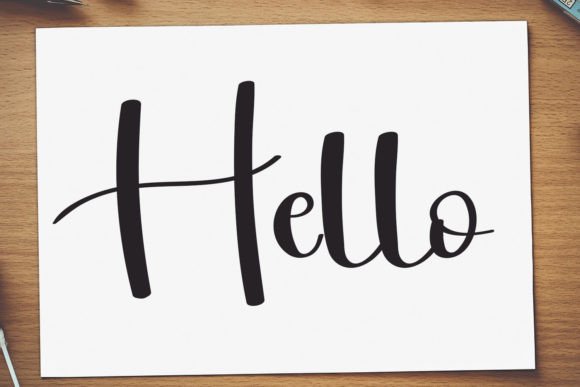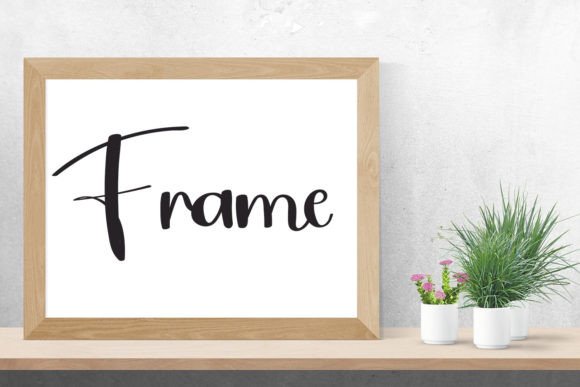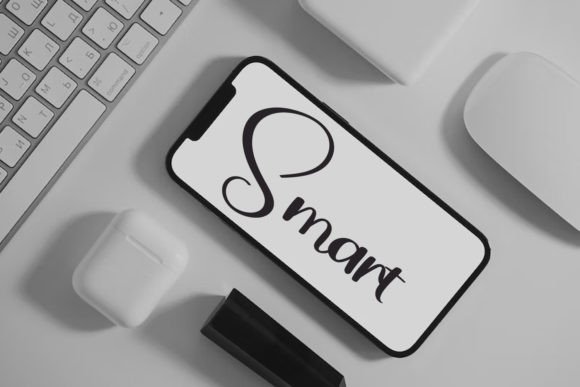
Discover the Elegance of Airy Font: Elevate Your Designs with Fresh and Beautiful Typography
In the world of design, typography plays a crucial role in conveying messages, expressing creativity, and capturing the audience’s attention. Among the numerous fonts available, Airy Font stands out as a fresh and beautiful addition to any design project. This versatile font is perfect for a wide range of applications, including YouTube banners, covers, logo mockups, wedding invitations, ID cards, flyers, crafts, and more. In this article, we’ll explore the features and benefits of Airy Font and how it can help take your designs to the next level.
What Makes Airy Font Special?
Airy Font boasts a unique and elegant design that instantly adds a touch of sophistication to any project. Its clean lines, subtle curves, and balanced proportions make it an excellent choice for designers and crafters seeking a modern yet timeless look. The font’s airy feel, which gives it a light and breezy appearance, is perfect for creating visually appealing designs that capture the viewer’s attention.
Key Features of Airy Font
• Fresh and Beautiful Design: Airy Font’s contemporary design ensures that your projects stand out from the crowd and leave a lasting impression.
• Versatility: This font is suitable for a wide range of applications, from digital designs like YouTube banners and social media graphics to print materials like wedding invitations and flyers.
• Elegant and Sophisticated: Airy Font’s elegant design makes it perfect for projects that require a touch of luxury and sophistication.
• Easy to Read: The font’s clear and balanced design ensures that your text is easy to read, even at smaller sizes.
How Airy Font Can Benefit Your Business
By incorporating Airy Font into your designs, you can significantly enhance your brand’s visual identity and take your business to new heights. Here are some ways Airy Font can benefit your business:
• Enhanced Brand Image: Airy Font’s elegant and sophisticated design can help create a positive and professional brand image.
• Increased Engagement: The font’s fresh and beautiful design can capture the audience’s attention, leading to increased engagement and interest in your brand.
• Improved Readability: Airy Font’s clear and balanced design ensures that your message is conveyed clearly, reducing the risk of miscommunication.
• Competitive Edge: By using a unique and elegant font like Airy, you can differentiate your brand from competitors and establish a distinctive visual identity.
Tips for Using Airy Font Effectively
To get the most out of Airy Font, here are some tips to keep in mind:
• Pair with Complementary Fonts: Experiment with pairing Airy Font with complementary fonts to create a unique and visually appealing typography.
• Use for Headings and Titles: Airy Font is perfect for headings and titles, where its elegant design can make a significant impact.
• Experiment with Colors and Textures: Don’t be afraid to experiment with different colors and textures to add depth and interest to your designs.
Airy Font is a fresh and beautiful addition to any design project, offering a unique blend of elegance, sophistication, and versatility. By incorporating this font into your designs, you can elevate your brand’s visual identity, engage your audience, and take your business to new heights. Whether you’re a designer, crafter, or business owner, Airy Font is an excellent choice for anyone seeking to create stunning and effective designs.